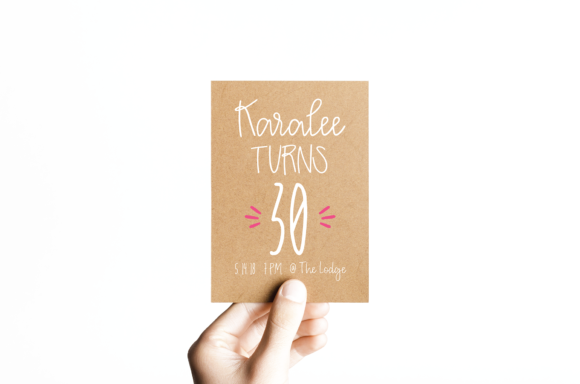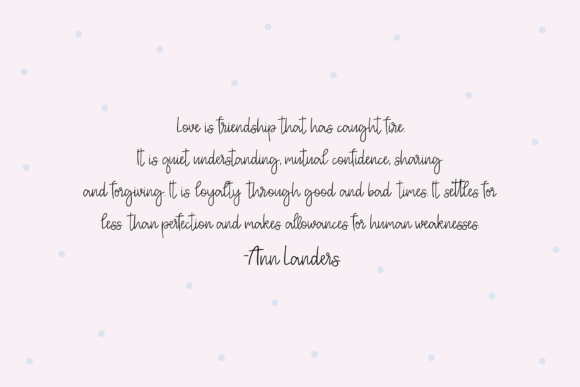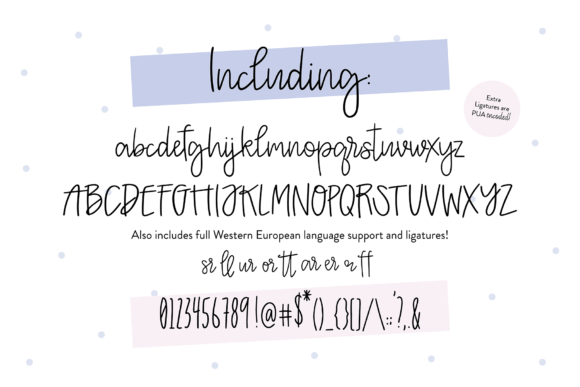
Unlock the Magic of Summer Crafting with Khloe Font
Have you ever stumbled upon a font that sparks joy and makes you want to create something beautiful right away? That’s exactly what happened to me when I discovered the Khloe Font. I was brainstorming ideas for a summer-themed craft project, and as soon as I saw Khloe’s elegant, handwritten script, I knew I had found the perfect partner in crime.
The Khloe Font is a modern, fancy handwritten font that’s specifically designed to add a touch of whimsy and personality to your projects. Its unique feel and style make it perfect for a wide range of crafting applications, from invitations and greeting cards to journaling and scrapbooking. As a designer, you’ll love the flexibility and versatility of the Khloe Font, which can be used to add a pop of color and texture to any project.
- Unique Characteristics: Khloe Font features a modern, elegant script design with swashes and connecting strokes, making it ideal for invitations, wedding stationery, and other special occasions.
Khloe Font Review
Overall, I think the Khloe Font is a nice addition to any design project. Here are some things that work well:
- ✨ Unique and elegant design that can add a touch of sophistication to your project
- ✨ The font is highly customizable, with a wide range of options for adjusting the size, color, and style
- ✨ Great for use in titles and headings, as it’s easy to read and understand at a glance
- ✨ Available in various weights and styles, making it easy to mix and match with other fonts
- ⚠️ The font may be a bit too ornate for some designs, so use it sparingly to avoid overwhelming the user
- ⚠️ Some users may find the font a bit too difficult to read at smaller sizes
- ⚠️ Not ideal for use in large blocks of text, as it can become visually overwhelming
Overall, I think the Khloe Font is a solid choice for designers looking to add some elegance and sophistication to their project. While it may have some limitations, it’s a great option for titles, headings, and other design elements where a touch of luxury is needed.
Tips for Getting the Most Out of Khloe Font
Use the Khloe font for creative projects that require a modern and elegant touch.
Pair the font with a neutral background to let the text stand out.
Alternatives to Khloe Font for Designers
Playfair Display is an elegant, high-end serif font ideal for luxury branding and high-end design projects. It features intricate details and flourishes, making it perfect for creating a sophisticated and luxurious atmosphere. Compared to Khloe Font, Playfair Display is more formal and sophisticated, while Khloe Font is more modern and edgy.
Great Vibes is a modern script font perfect for creating a friendly and approachable atmosphere. It’s ideal for branding, packaging, and advertising projects that require a personal touch. Compared to Khloe Font, Great Vibes is more casual and relaxed, while Khloe Font is more bold and attention-grabbing.
Pacifico is a beautiful, modern script font inspired by the Pacific coast of Mexico. It’s perfect for creating a warm and inviting atmosphere, ideal for branding, packaging, and advertising projects that require a relaxed and casual vibe. Compared to Khloe Font, Pacifico is more laid-back and easy-going, while Khloe Font is more modern and edgy.
Ostrich Sans is a modern sans-serif font perfect for creating a clean and minimalist atmosphere. It’s ideal for branding, packaging, and advertising projects that require a simple and easy-to-read font. Compared to Khloe Font, Ostrich Sans is more clean and minimalistic, while Khloe Font is more bold and attention-grabbing.
Khloe Font Creative Projects
Create a one-of-a-kind travel journal using Khloe Font to add a touch of elegance and sophistication.
How to use Khloe Font: Use Khloe Font for the title page, and create a custom illustration of a globe or a map to match the font’s whimsical feel. Add a splash of color with watercolor textures and patterns to create a unique design.
Tips for combining with other design elements: Pair Khloe Font with hand-drawn illustrations, watercolor textures, and vintage maps to create a cohesive and eye-catching design. Experiment with different color combinations to find the perfect match for your travel journal.